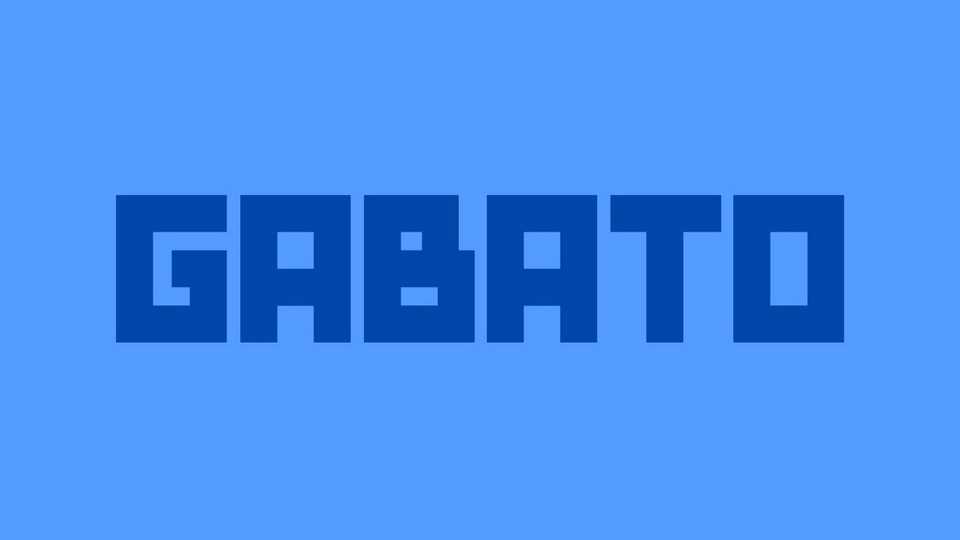
Download Gabato font, a simple geometric display typeface based on rectangular shapes. Gabato is best for bold, expressive headlines, posters, and brand identities.
Designer: DaeDsgn